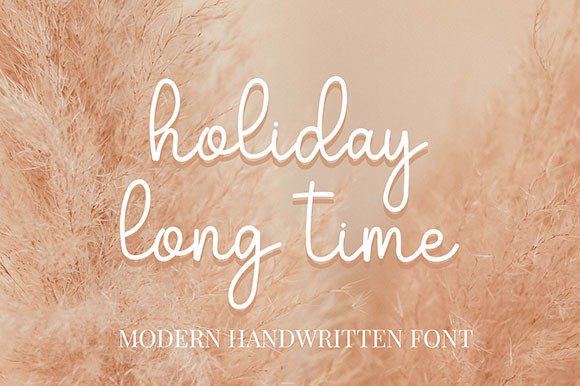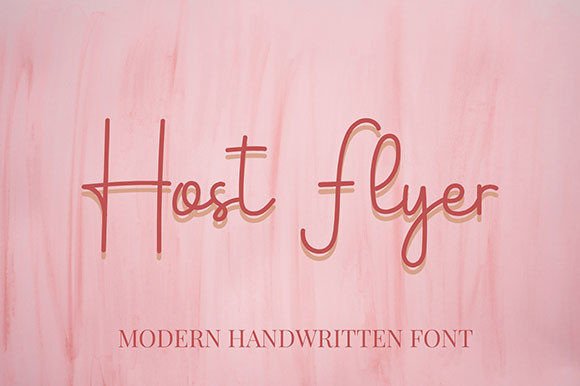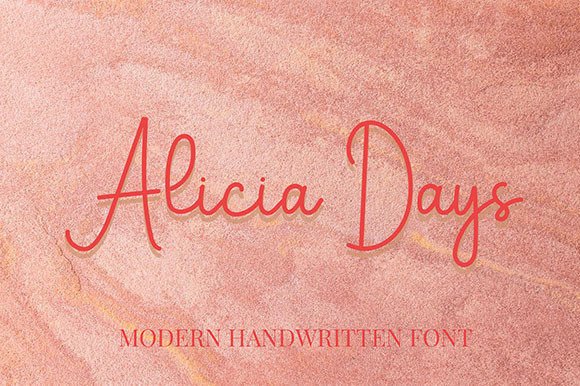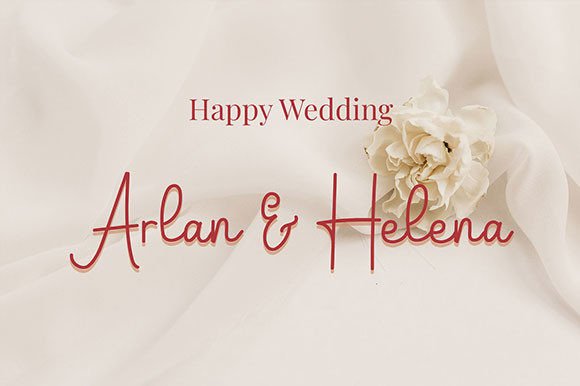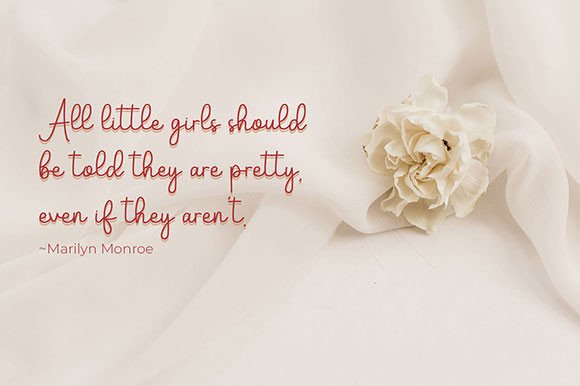
Yuliya Font
About Yuliya Font
Yuliya is a charming handwritten font with nicely rounded characters. This font will be suitable for various projects such as quotes, logos, blog headers, posters, ribbons, fashion, clothing, letters, invitations, stationery, etc.